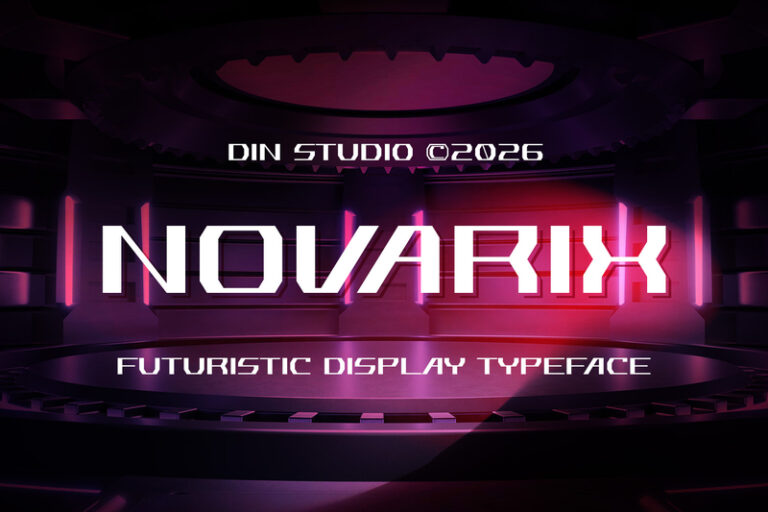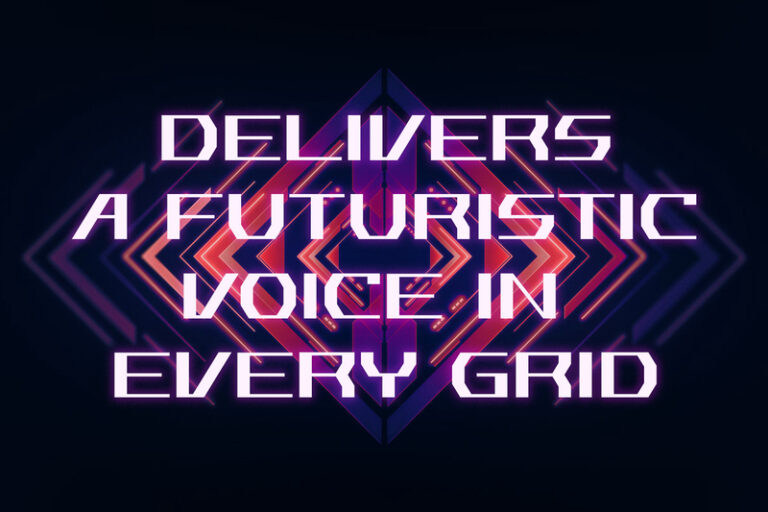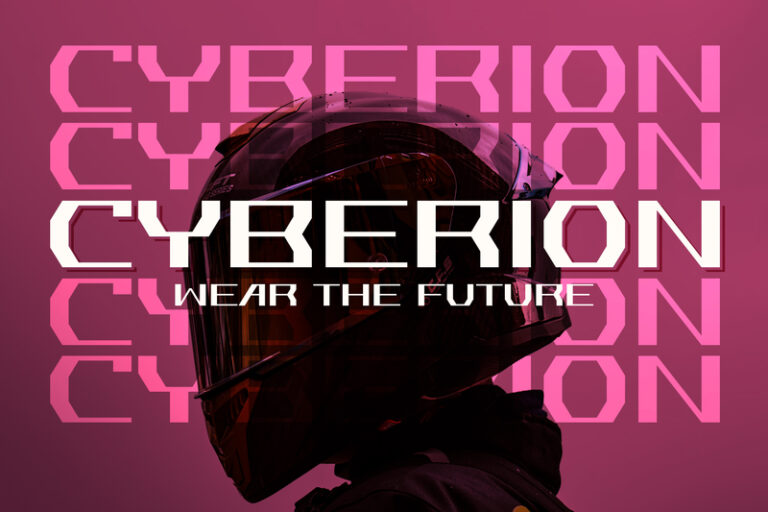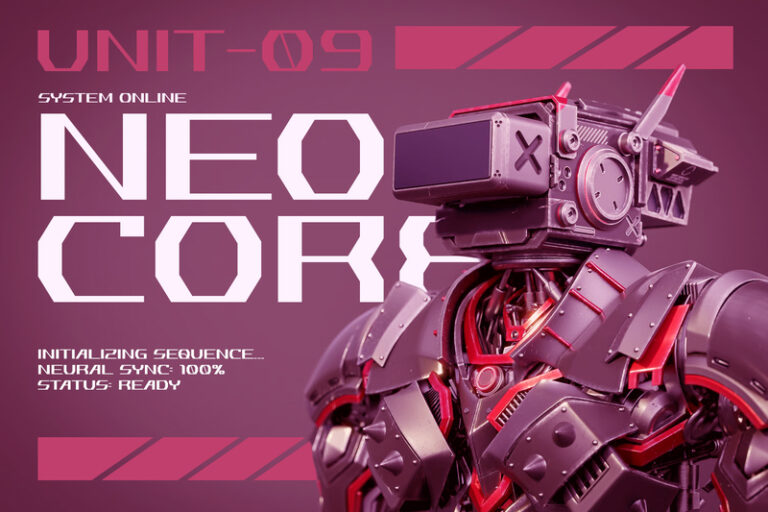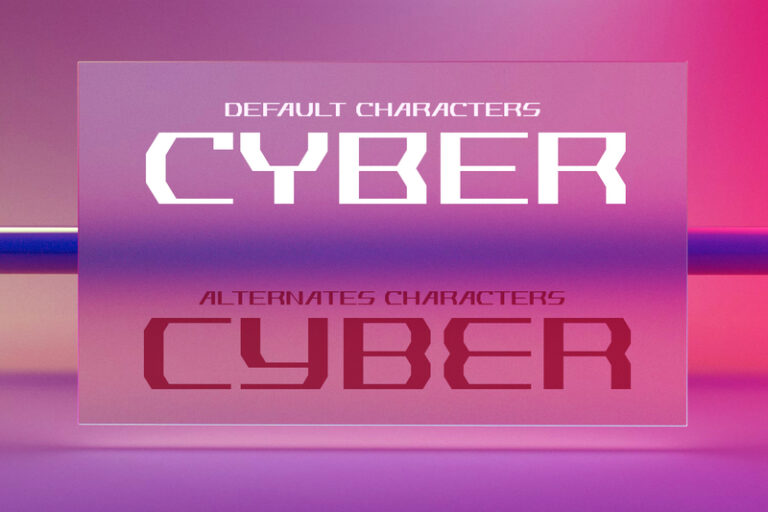
Novarix – Futuristic Display Font
Novarix
Novarix is a cutting-edge display font that brings a sleek futuristic aesthetic to modern design. Crafted entirely in uppercase, this typeface delivers a bold and structured visual identity while maintaining a refined, not-too-thick weight that keeps it clean and versatile. Its sharp corners and precise geometry create a high-tech appearance. The visible contrast enhances readability while adding depth. In addition, enjoy the features here.
- Alternates
Novarix fits in logos, quotes, branding, posters, and many more designs. Find out more ways to use this font by taking a look at the font preview.